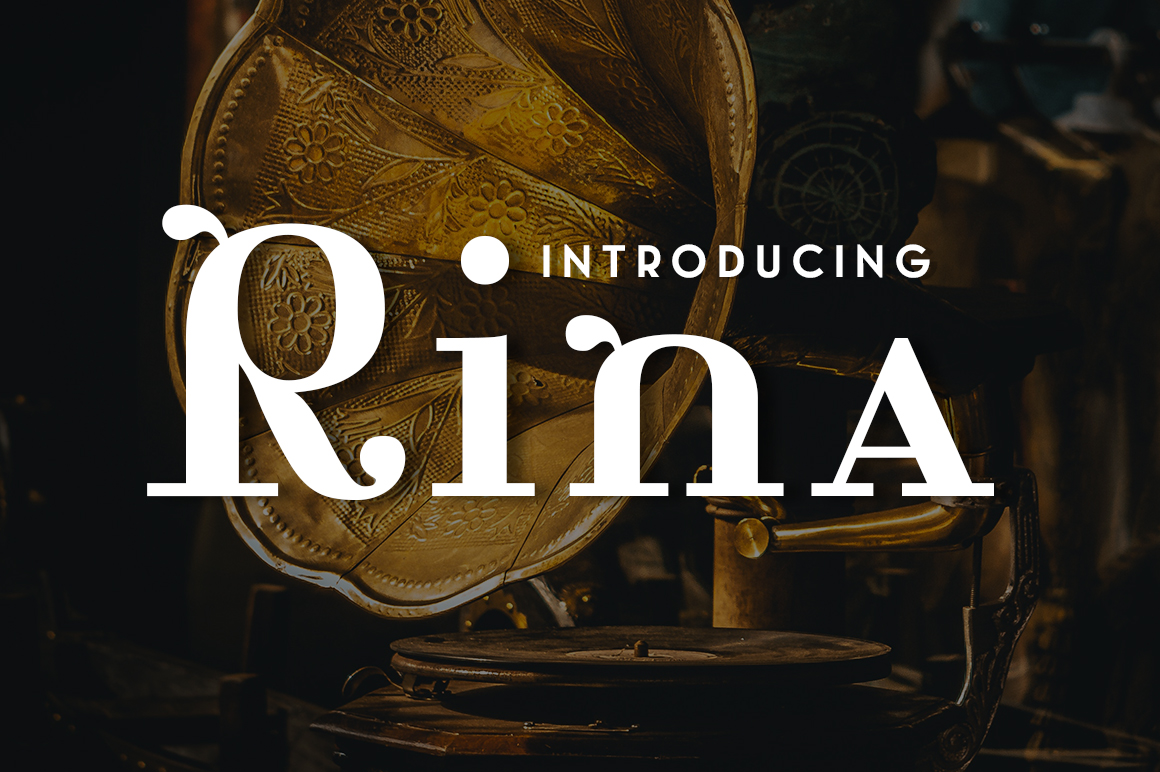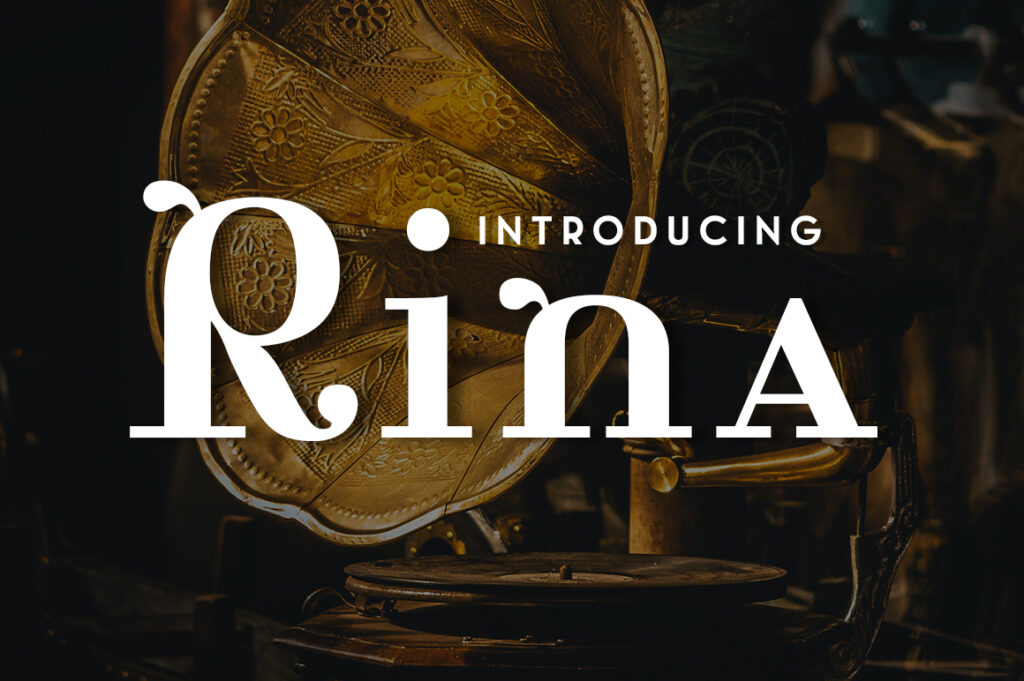
HomePersonal Use FreeRina Personal Use Free Rina FacebookXPinterestWhatsApp 1 of 1 About Rina Font Rina is a rummy didone typeface, a beautiful font that can make your designs look more classic and timeless. This vintage, serif font is free from Typodermic. DOWNLOAD NOW People also explored Hevojniwal Signature Font Lefthand Font Geovana Signature Typeface Font Star Rantam Font The Lady Bear Desta Font Whilling Font Gladise Font Linesa Font 427 0 TagsAetrina Script FontAlastrina Font Previous articleCoolveticaNext articleMold Papa LEAVE A REPLY Cancel reply Comment: Please enter your comment! Name:* Please enter your name here Email:* You have entered an incorrect email address! Please enter your email address here Website: Save my name, email, and website in this browser for the next time I comment. Personal Use Free Astercla Personal Use Free Read more about this font Cranberry Gin Personal Use Free Read more about this font Jellia Personal Use Free Read more about this font Zojihun Personal Use Free Read more about this font BLOG Free Fonts Risk: Why Free Fonts Can Be Dangerous for Designers Free Fonts Risk: Why Free Fonts Can Be Dangerous for Designers Using free fonts is a common practice in web and graphic design. However, the... Transform Your Website: Elevate Your Typography with 7 Best Web Font Generators Elegant Wedding Invitation Fonts – Handwritten & Script Fonts To increase your work productivity, choose the most readable fonts.